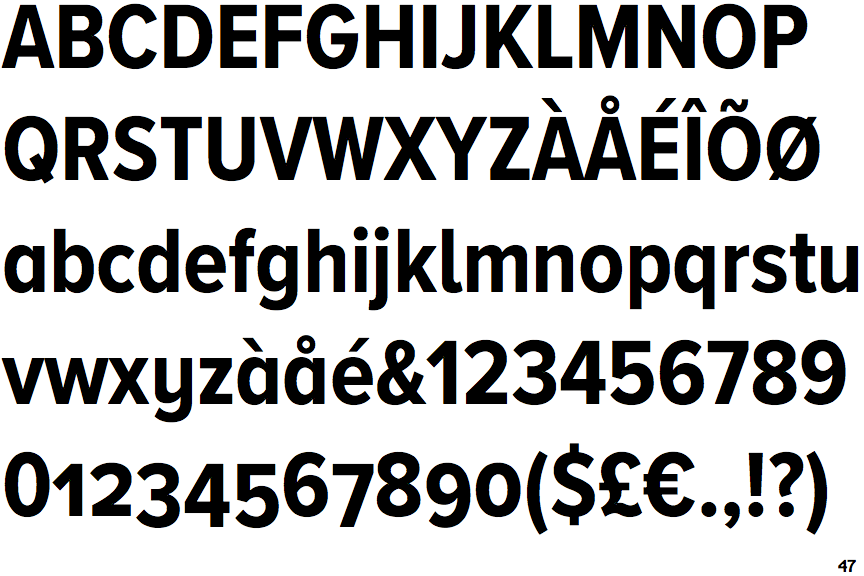
Web how about 20,000+ commercial fonts with unlimited downloads download now the proxima nova font family is a complete reworking of proxima sans (1994). Web proxima nova font free download this font family is inspired by the proxima centauri. Web the proxima nova family is a complete reworking of proxima sans (1994).